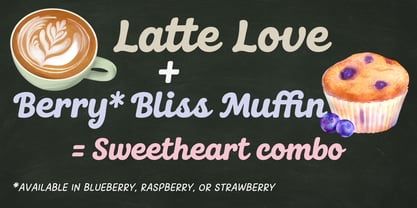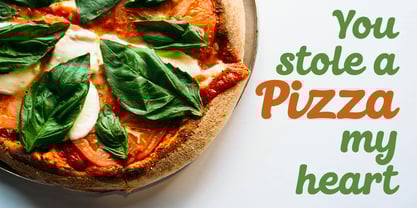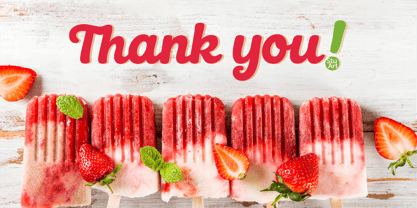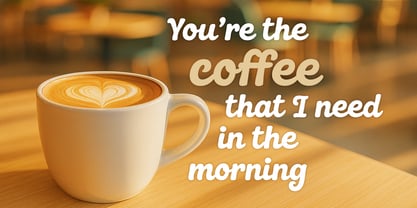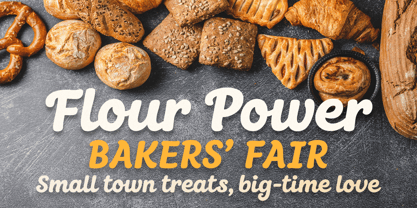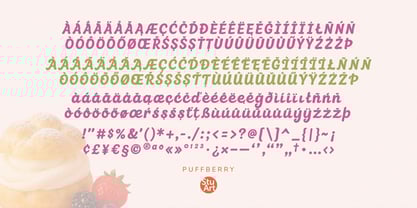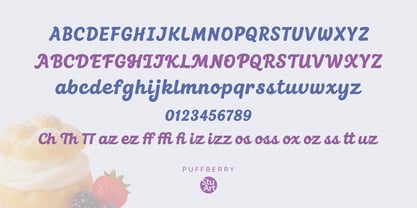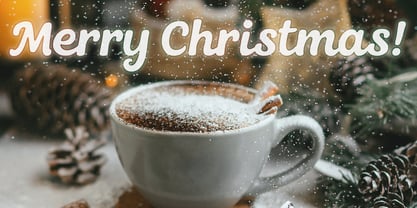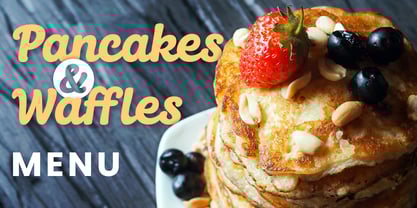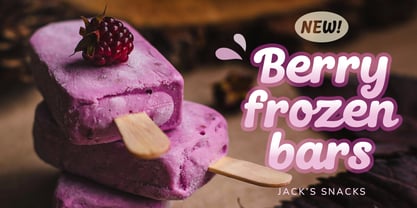
Puffberry
by StuArt
The Puffberry Font Family was designed by Andrea Stuart and published by StuArt. Puffberry contains 1 styles.
Puffberry is a delightfully thick and curvy script font that brings instant joy to your projects. Its smooth, rounded strokes and hand-lettered style make every word feel friendly, fresh, and full of flavor—like a berry-filled treat for your eyes. Plus, it includes multilingual support and ligatures for natural letter connections. It's perfect for everything from branding and packaging to social posts and merch.
Serve up some creative sweetness—Puffberry makes every project pop with warmth and charm!
About StuArt
StuArt is the passion project of Andrea Stuart, where pen meets pixel. It began with a simple appreciation for the curves of an ‘s’ and evolved into a lifelong love for the art of letters. She was especially drawn to the ones that felt human—organic, relaxed, and full of personality. When she discovered the tools to create her own, she began turning her signature style into digital type, and StuArt was born—a foundry dedicated to capturing the warmth of a handwritten note without the ink stains. It's personality, digitized.